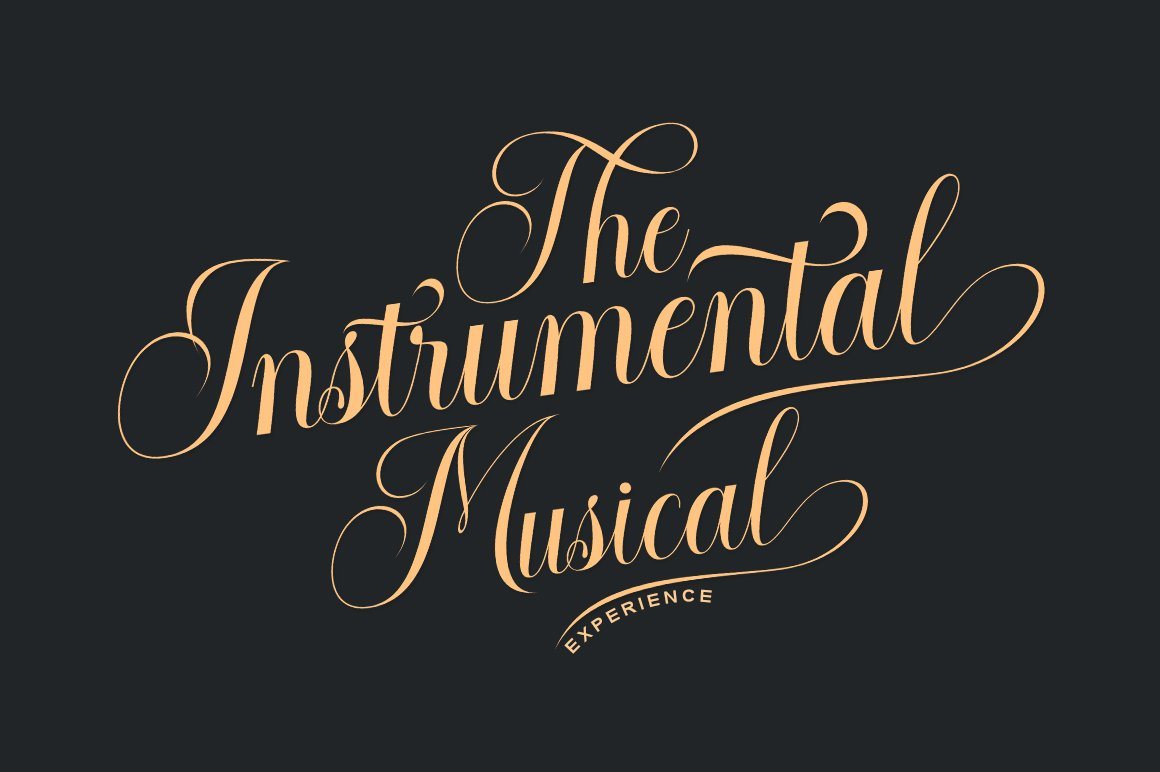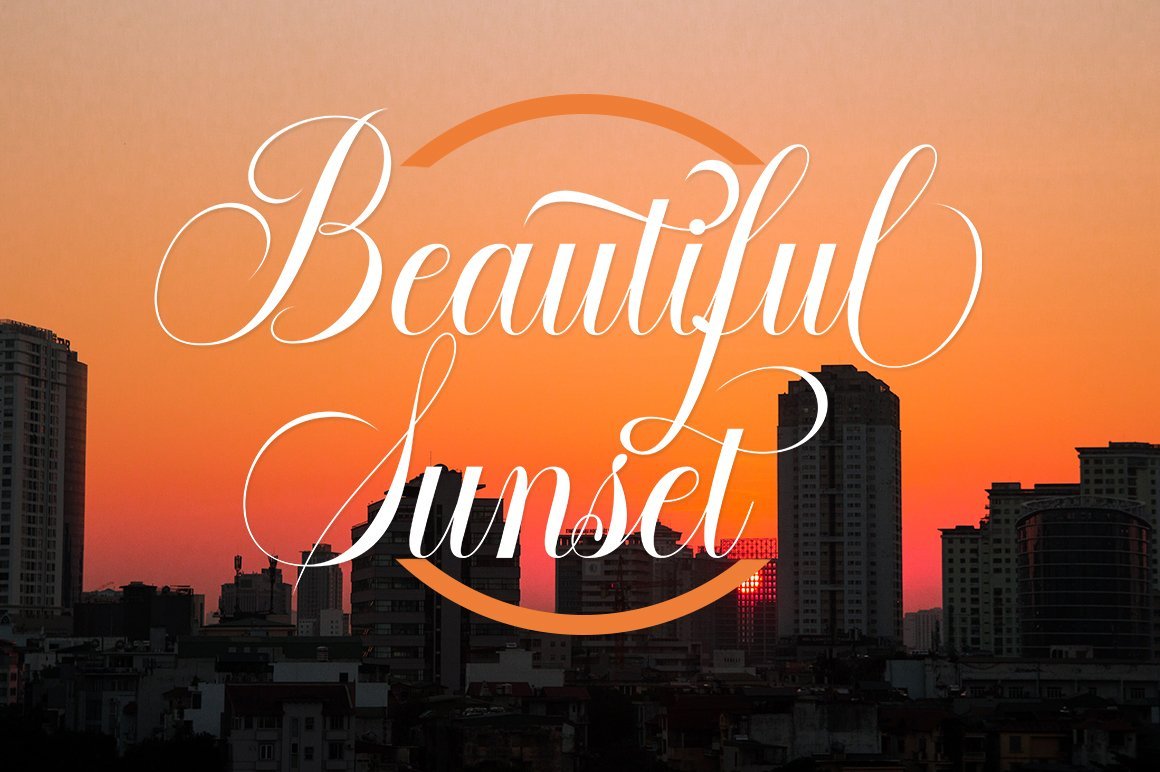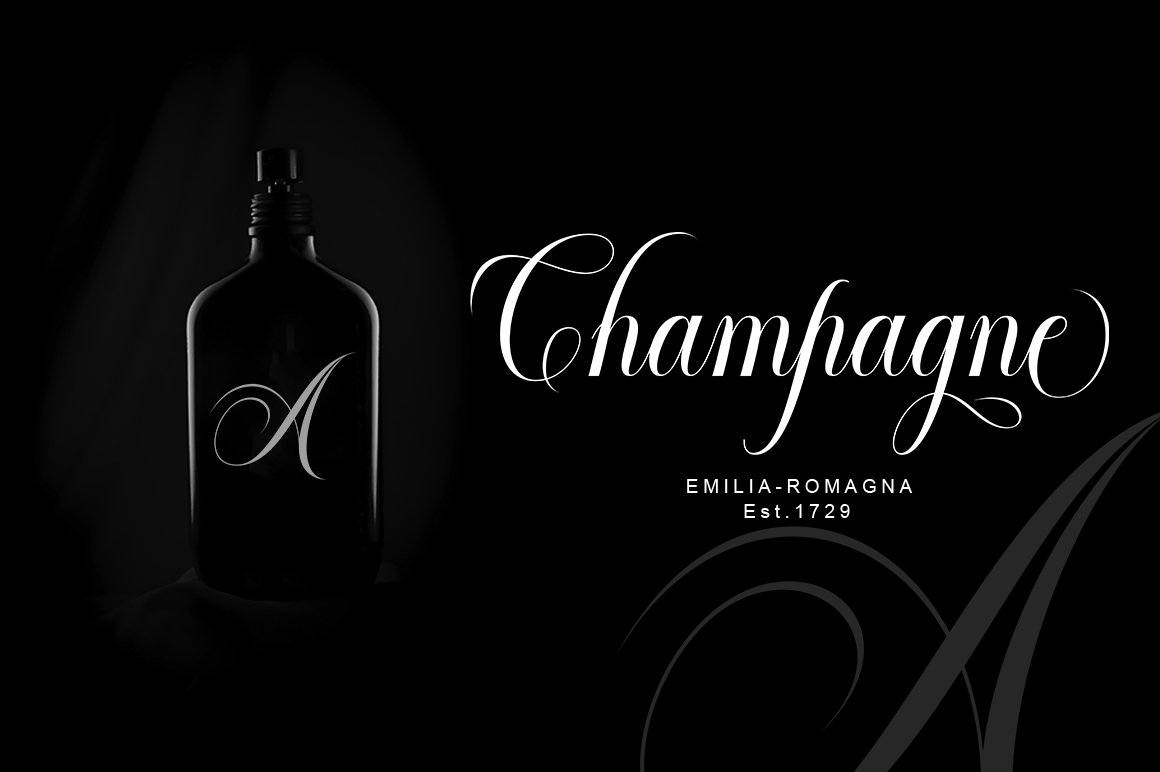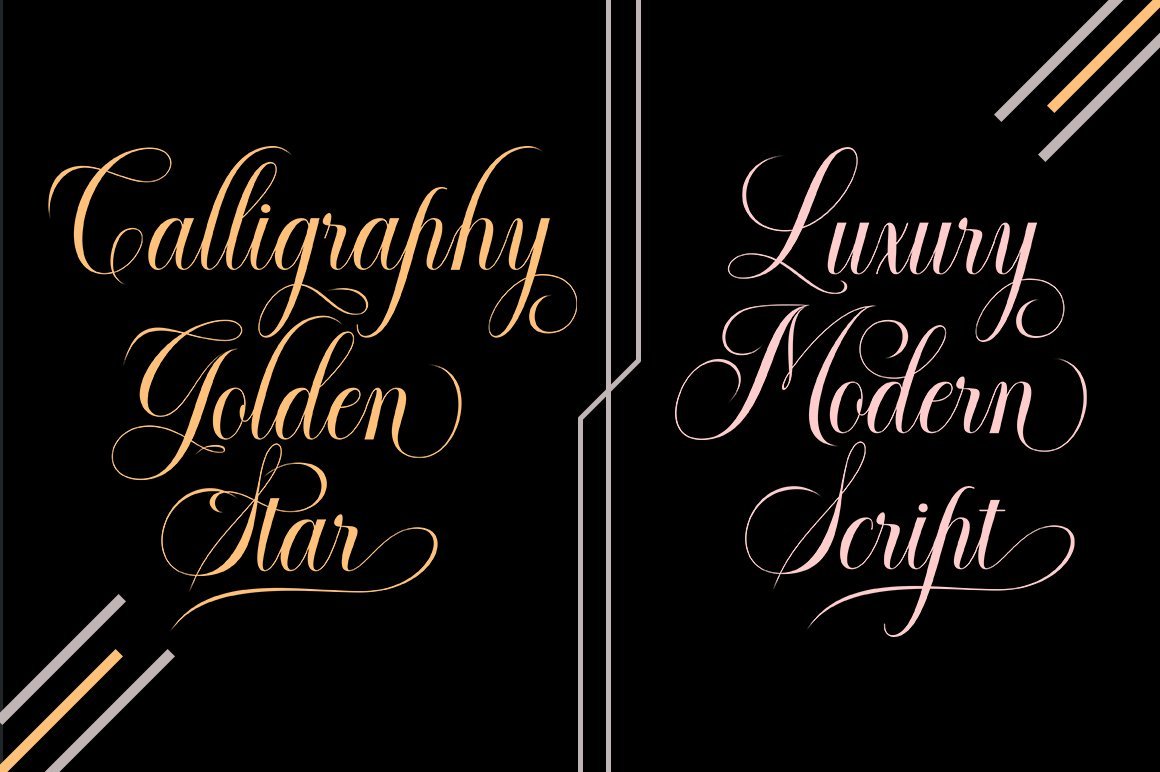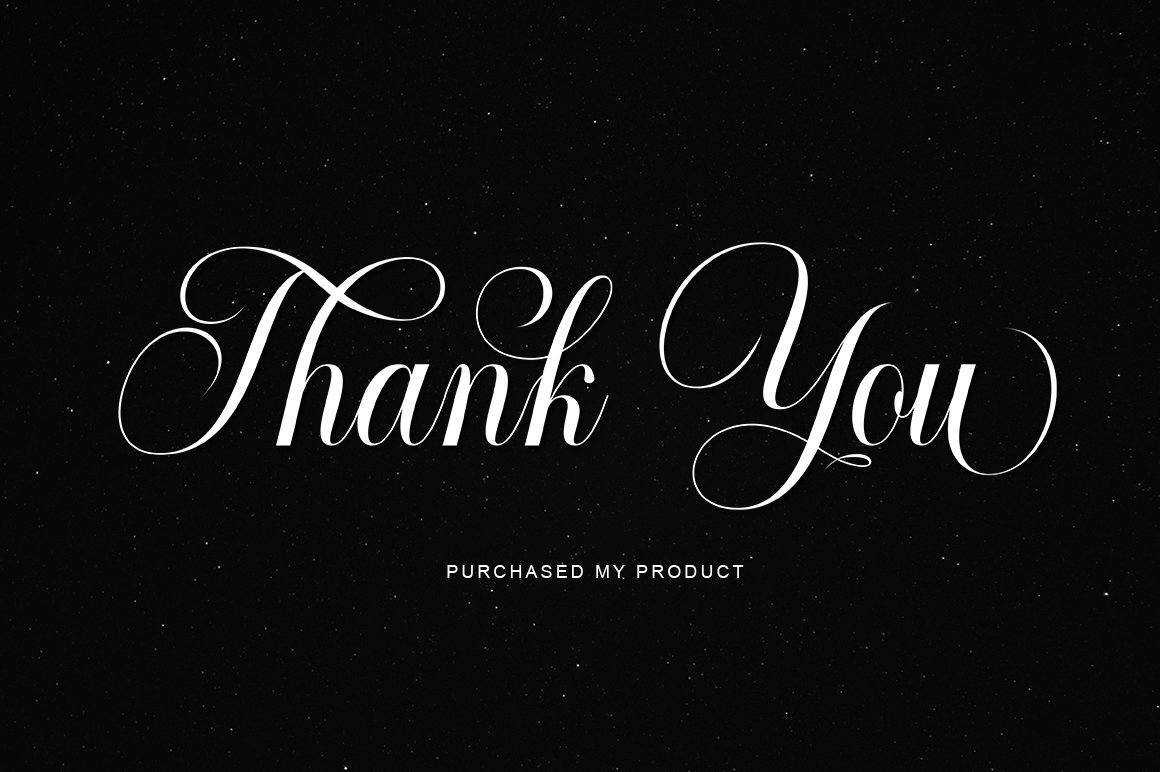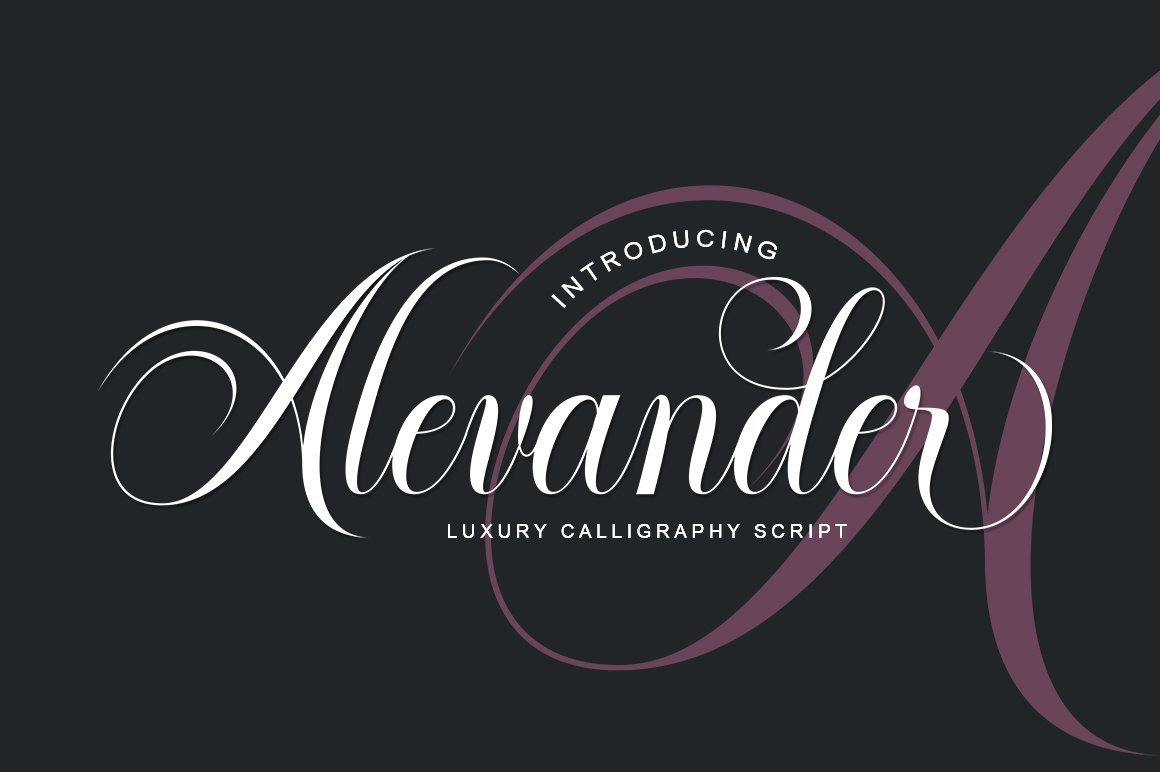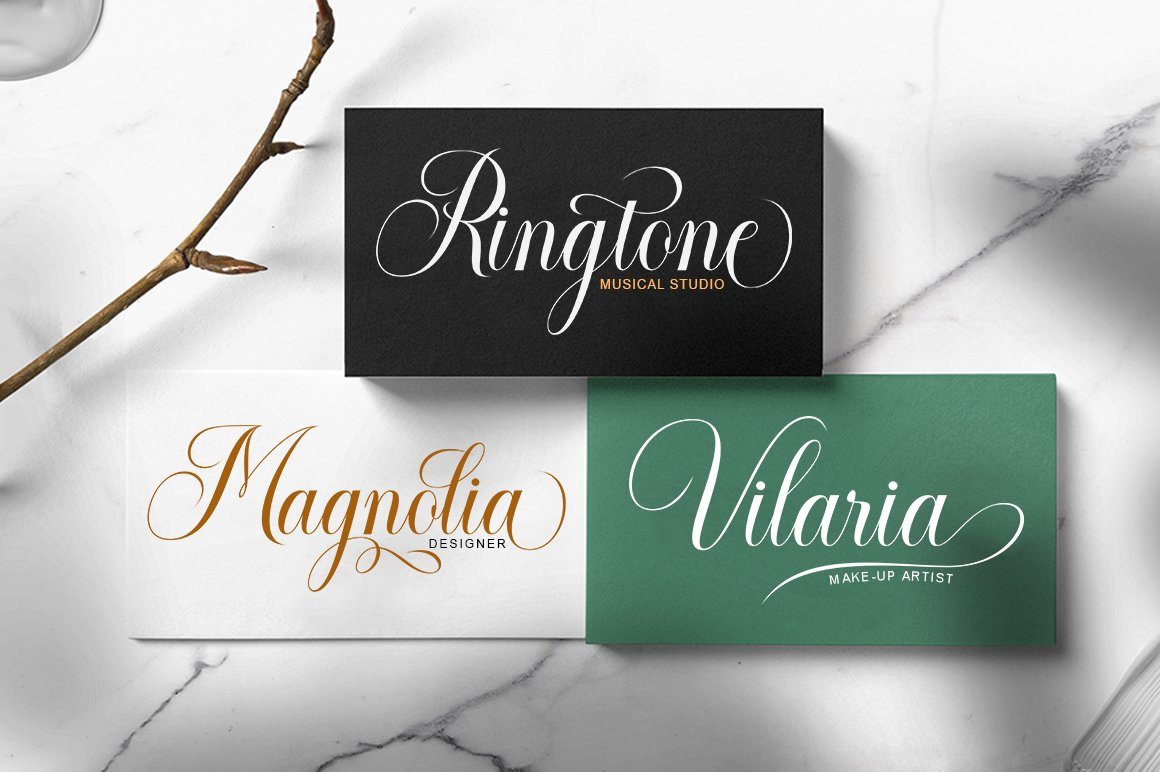
Alevander Script
About Alevander Script
Introducing Alevander Script is a classic calligraphy font. This is a classic thin font with an italic style. Here will get a beautiful classic font. This font has several modern swirls that can make work look elegant, sweet and perfect. With a style like this, this font would be perfect for logos, branding projects, homeware designs, product packaging, mugs, quotes, posters, shopping bags, logos, t-shirts, book covers, business cards, invitation cards, greeting cards, and more. all other beautiful projects. Can use this font for work very easily. Because there are many features in it. Contains a full set of lowercase and uppercase letters, punctuation marks, numbers, web fonts and multilingual support. This font also includes several binding styles and an alternative Stylistic Set for those who have software capable of working with OpenType (Corel Draw / Photoshop / Illustrator / InDesign). Files include: Alevander Script.OTF Alevander Script.TTF If you don’t have a program that supports OpenType features like Adobe Illustrator and CorelDraw X Versions, you can access all the alternative glyphs using Font Book (Mac) or Character Map (Windows): Thank you for buying!